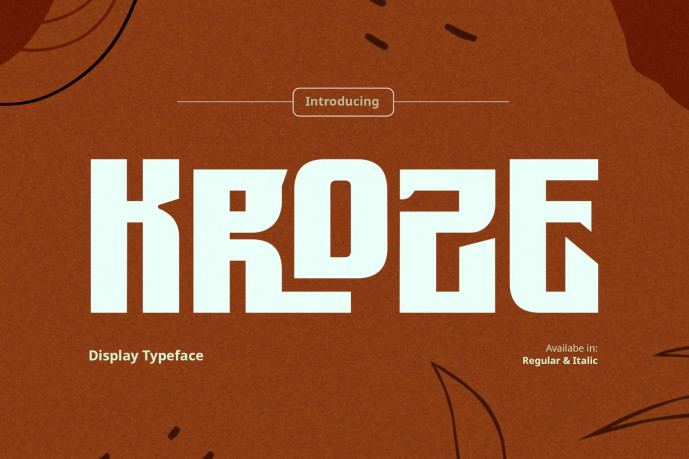
Kroze Font
Designer: Jarnawi
Kroze is a bold urban Sans Serif font with a modern attitude and a distinctive personality. Designed to make a lasting impression, its strong letterforms are perfect for logos, corporate identities, branding, headlines, packaging, and creative projects that demand attention. Complete with stylish ligatures, Kroze delivers a clean, professional look while keeping its bold and unique character. Clean, powerful, and versatile, it’s the perfect choice for designers who want typography that stands out with confidence.
Basic Latin Glyphs
Modern Display Font
Unique Ligatures
All Caps Letters
Numeral and Punctuation
Currencies
Multilingual Support